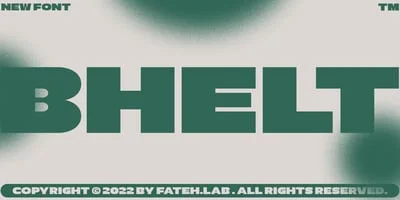
Bhelt Font
Bhelt Font is perfect for rugged outdoor gear branding, adventure equipment marketing, heavy-duty industrial signage, masculine lifestyle campaigns, sturdy construction company logos, durable product packaging, tactical gear promotions, and authentic workwear brand identity.
This font is exciting because it embodies unbreakable strength with industrial durability and masculine sophistication. Bhelt Font features bold, reinforced letterforms with belt-like structure that capture the essence of reliable craftsmanship and enduring quality, making it ideal for projects that require authentic toughness and dependable character.
The Bhelt Font family includes regular, heavy, condensed, and reinforced variants, along with industrial alternates and durable ligatures that enhance its sturdy character. Each weight maintains the font's robust aesthetic while providing different levels of strength expression for various industrial and masculine design applications.
Whether you're developing authentic rugged brands, creating compelling durability materials, or designing powerful masculine campaigns, Bhelt Font delivers exceptional strength and industrial appeal. Its distinctive sturdy style makes it an excellent choice for designers seeking to add genuine toughness and reliable sophistication to their projects. The font's versatility extends from outdoor equipment branding to industrial construction signage, ensuring consistent performance across all durable applications. With its solidly crafted letterforms and industrial proportions, this typeface provides professional results that inspire confidence and establish trustworthy brand presence with its unmistakable sturdy character and dependable masculine elegance.